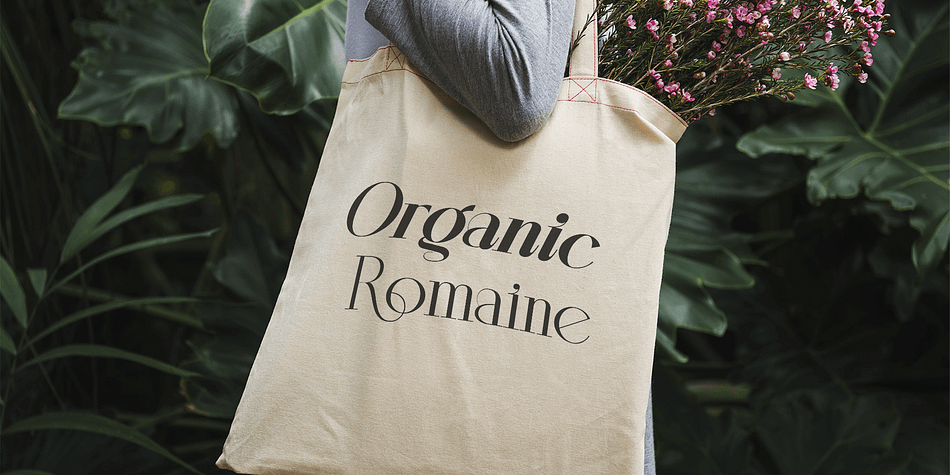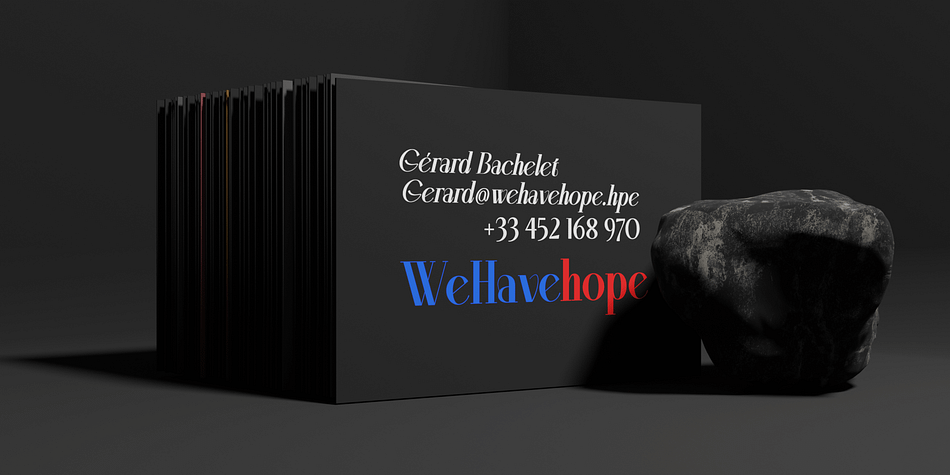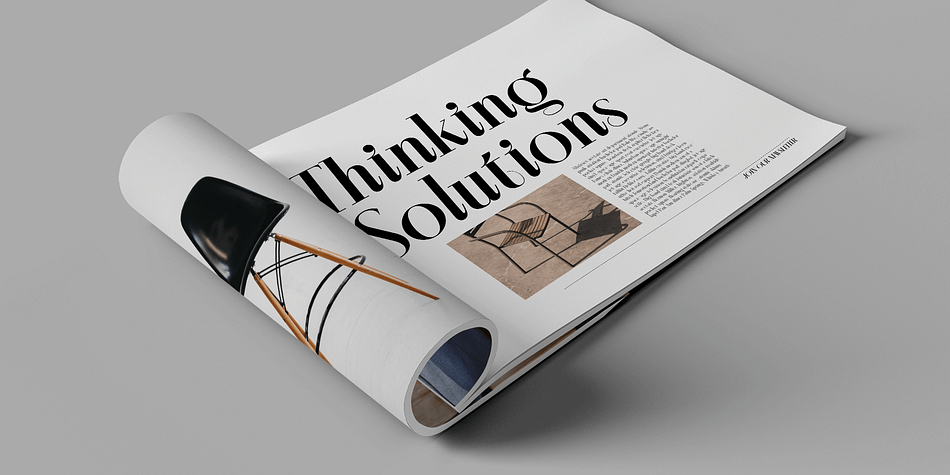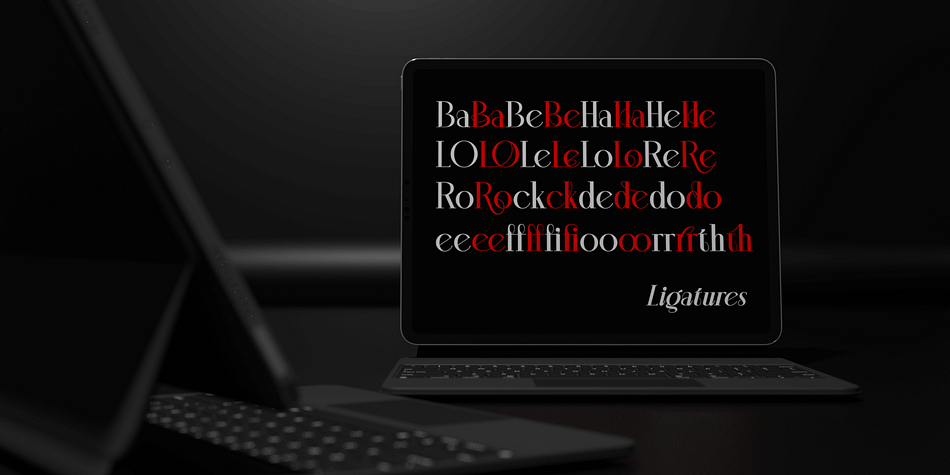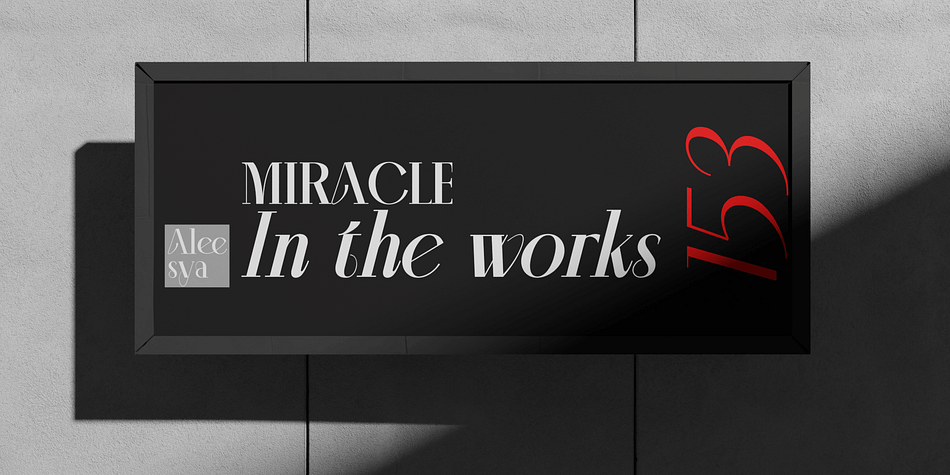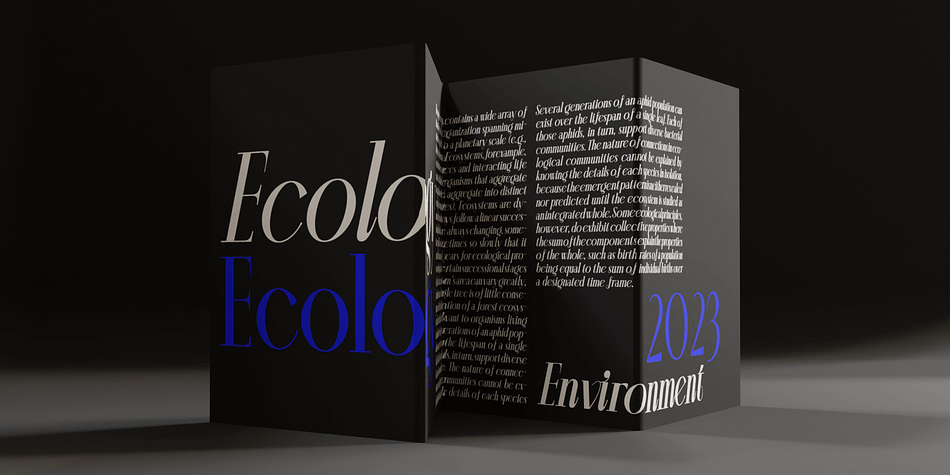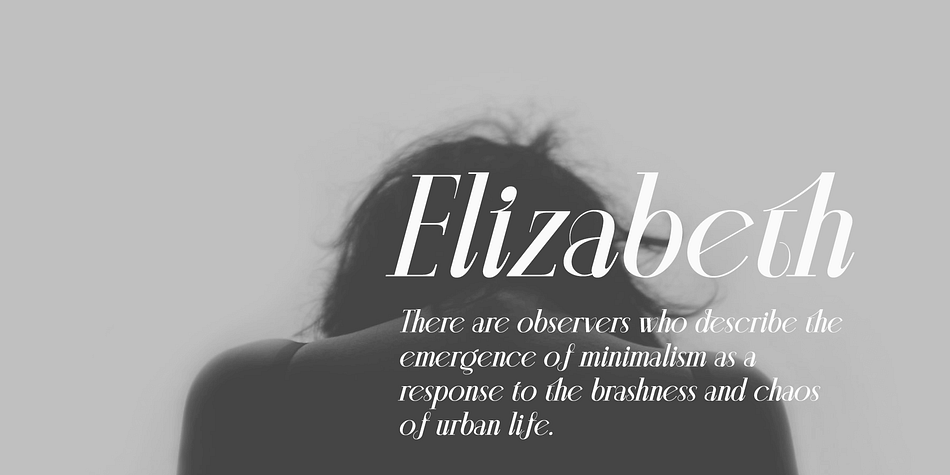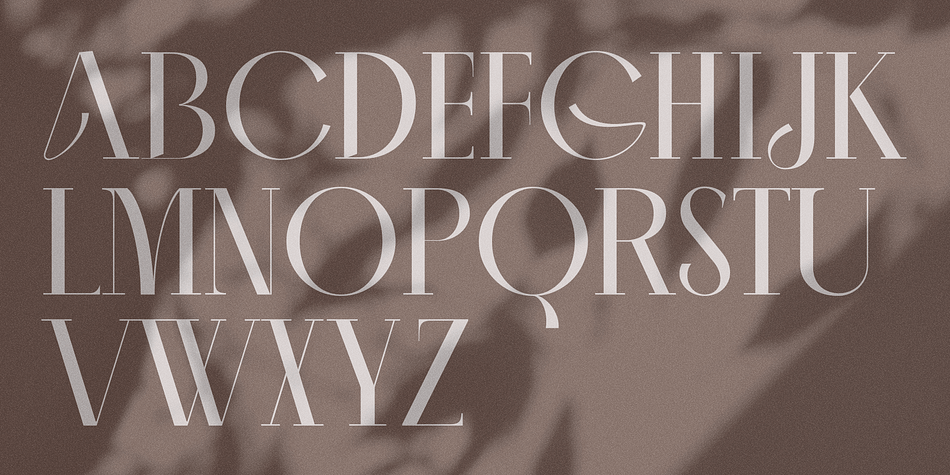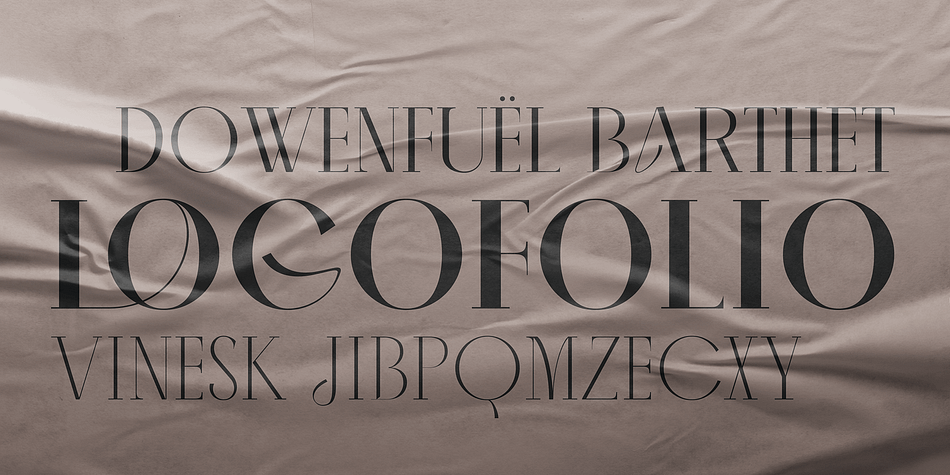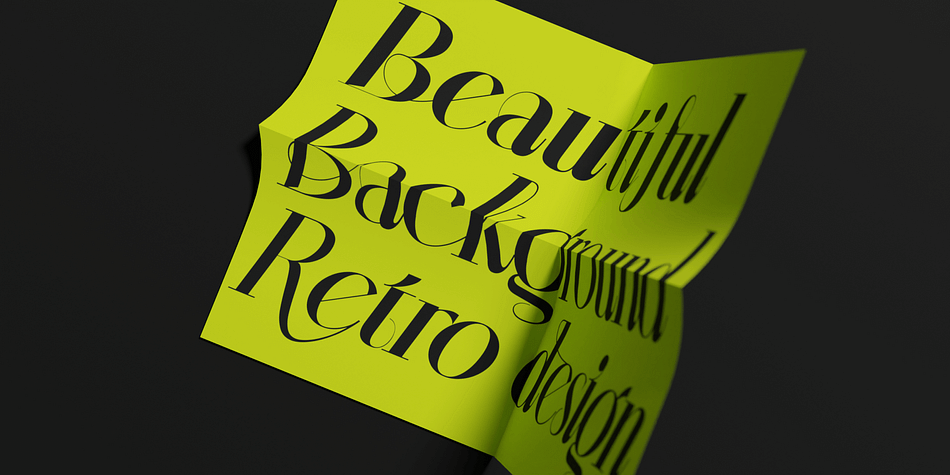
Aleesya Serif is a display serif font family. This typeface has fourteen styles and was published by Brenners Template.
The design inspiration for this beautiful font family is its delicacy and elegance.
Blended with Didot style, modern ligatures and italics add to the elegant serif family.
The creative variations, especially applied to italics, will go well with any layout you’re trying to show off. The clear contrast blends into all styles - even thin styles - and the strong individuality by weight delights the designer’s imagination. 14 styles including 7 weights and italics are essential for designers to complete more detailed and sophisticated typography.
The ligatures are designed to appeal to the reader with their beautiful tenderness, and they are:
Ba, Be, Ha, He, LO, Le, Lo, Re, Ro, ck, de, do, ee, ff, fi, oo, rr, th.
- Italic Styles are modified
- Some glyphs are updated (A, B, K, M, N, R, U, V, W, Y, b, d, k, p, q)
- Some Kerning Systems